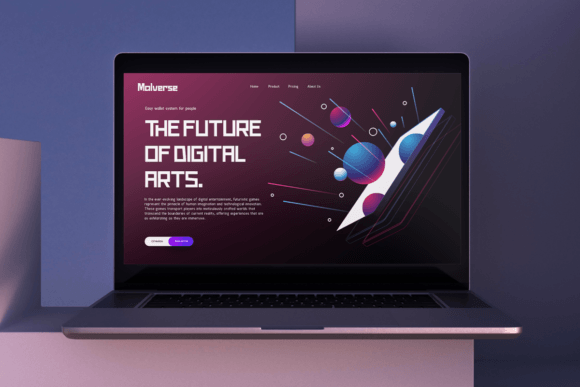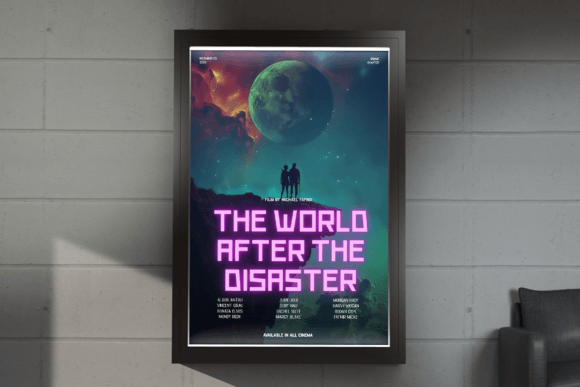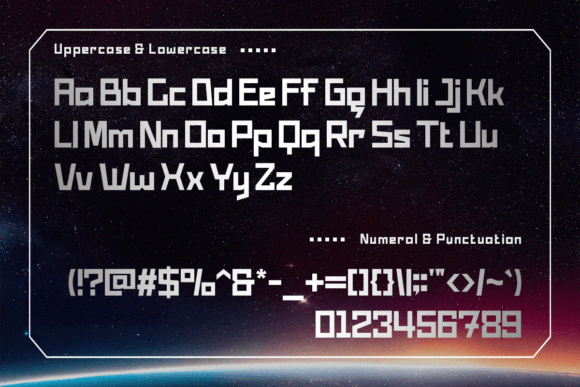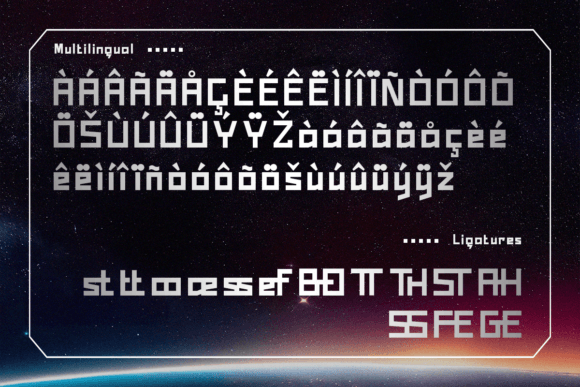
Introduction to Eboxio Font Font
Fonts play a crucial role in design, and the Eboxio Font font is a typeface that brings both character and versatility to any project. Whether you’re working on a branding project, a website, or a print design, the Eboxio Font font offers a unique style that can elevate your work.
Eboxio Futuristic Font is a cutting-edge typeface with a sleek, futuristic design, perfect for technology-themed projects, sci-fi artwork, gaming graphics, and modern branding.
Its sharp angles and clean structure make it ideal for creating bold, high-tech visuals Available in OTF and TTF formats with multilingual support.
Key Features of Eboxio Font Font
Why Choose Eboxio Font Font?
The Eboxio Font font is more than just a typeface – it’s a design tool that helps you communicate your message with style and clarity. Its unique character set and versatile design make it suitable for a wide range of applications, from elegant invitations to bold headlines.
With its carefully crafted letterforms and balanced proportions, the Eboxio Font font ensures readability and visual appeal across all mediums.
What makes Eboxio Font font special?
The Eboxio Font font stands out with its unique design, exceptional readability, and versatility across various design applications.